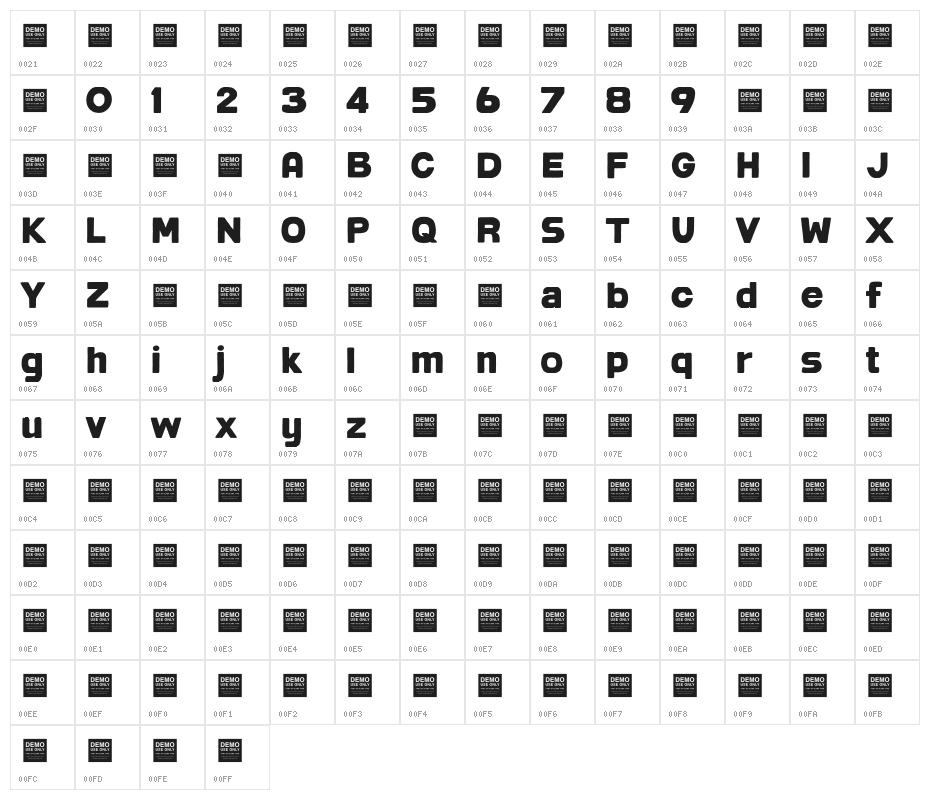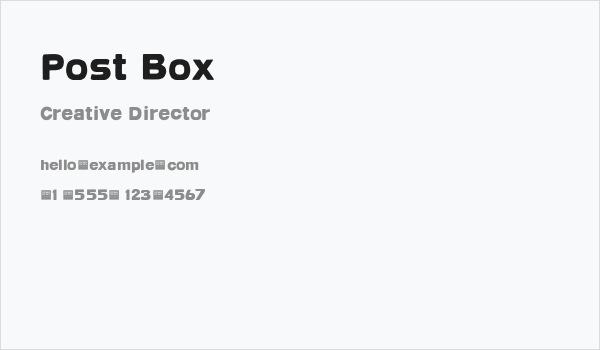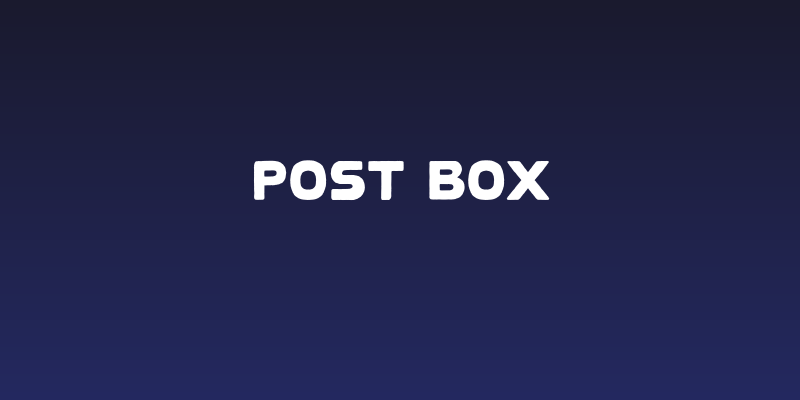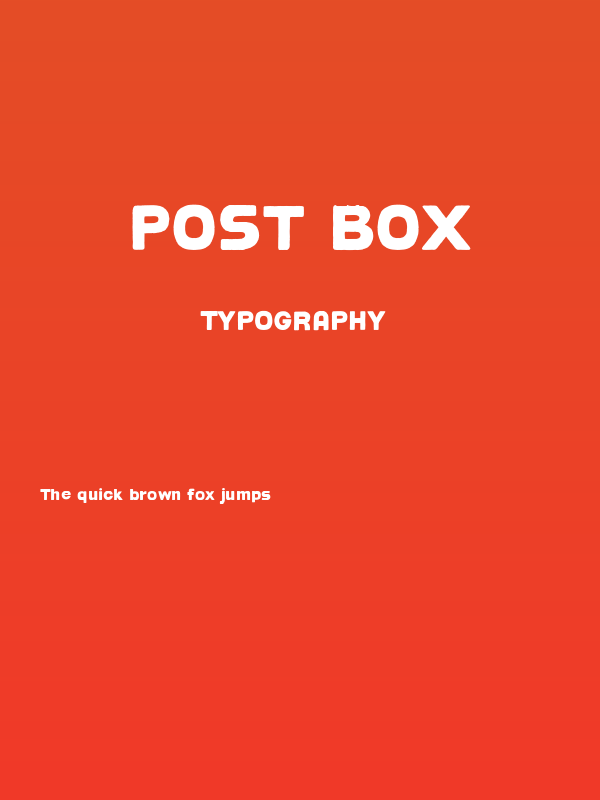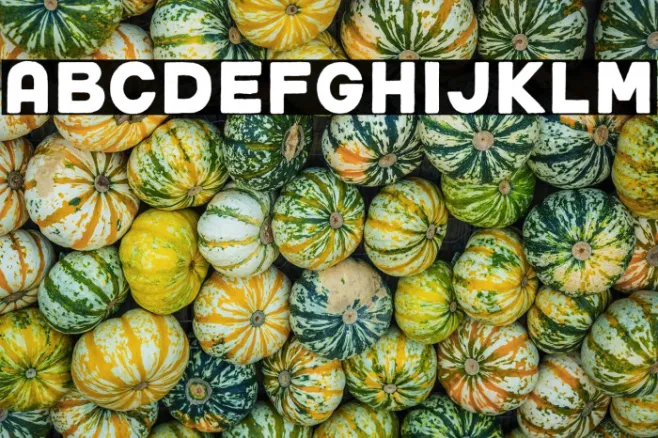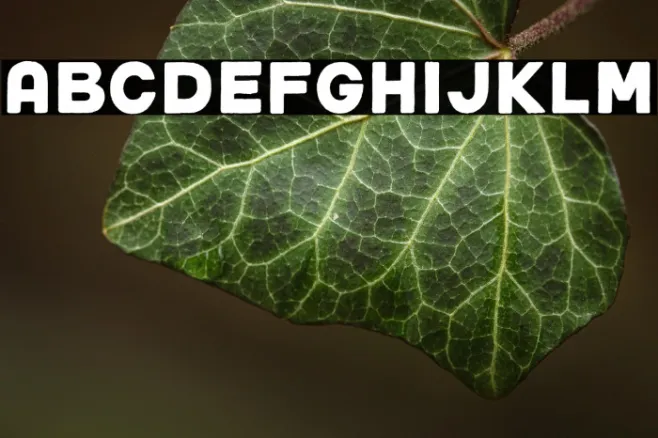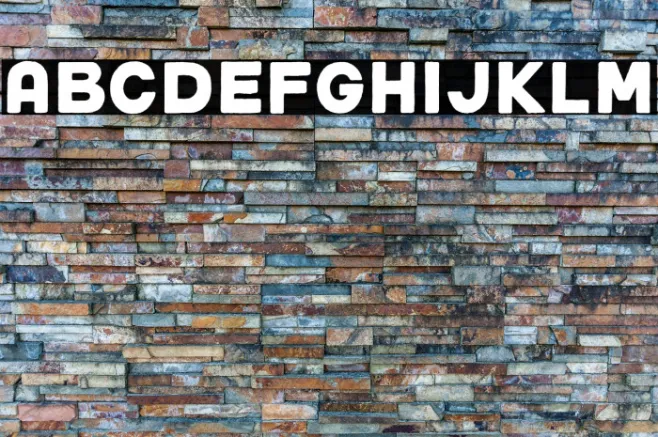
Post Box Font
Post Box Description
This font features bold, rounded characters with a strong presence, making it ideal for impactful designs. The uppercase and lowercase letters are consistent in style, with a slightly condensed appearance that enhances readability. The numbers and special characters maintain the same boldness, ensuring uniformity across all text elements. The font's design is modern yet retains a classic feel, suitable for various applications.
POST-BOX UPPERCASE
POST-BOX LOWERCASE
POST-BOX OTHER CHARS
| Use Case | Headlines, Logos, Signage |
| Proposed Projects | Ideal for branding, posters, headlines, and signage where a strong visual impact is needed. |